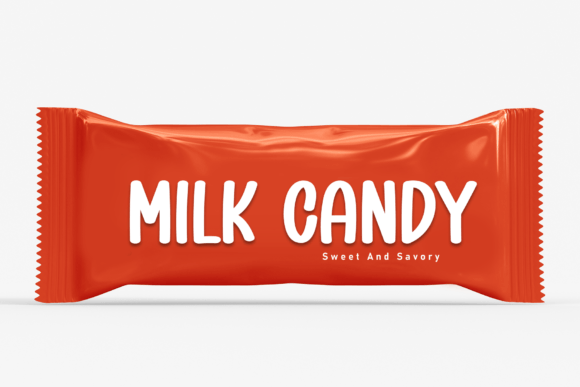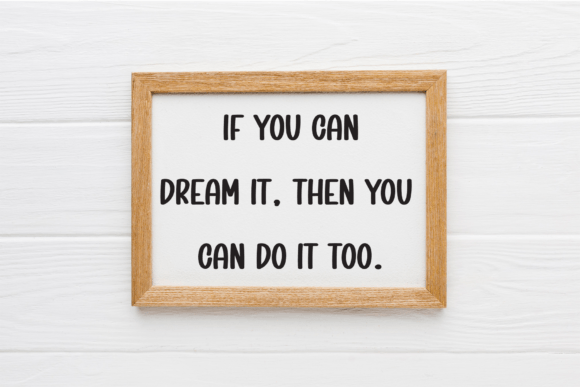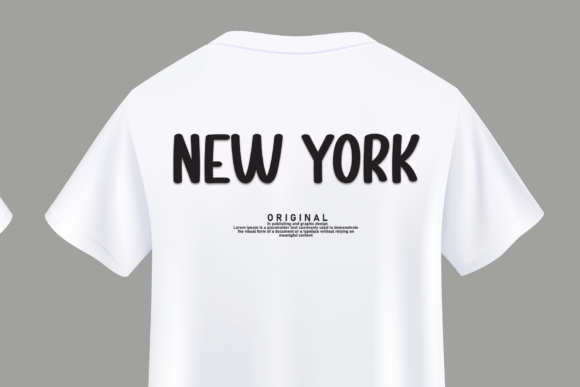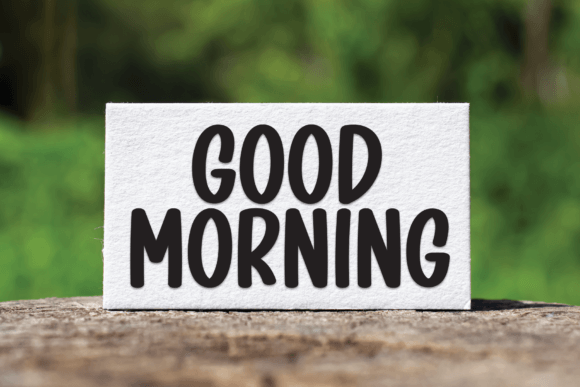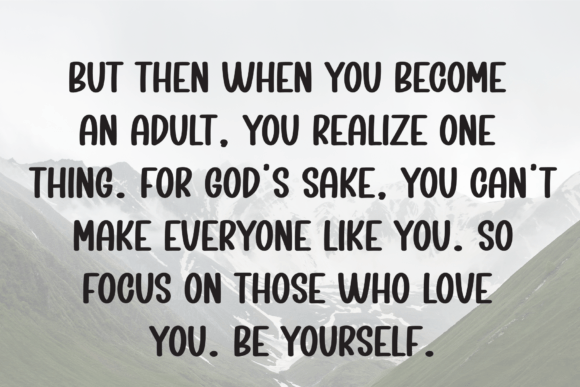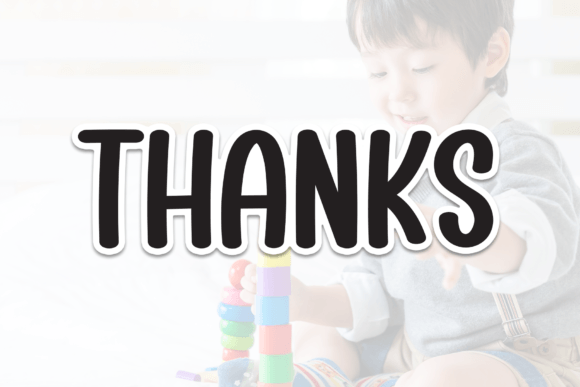
Baby Boy Font: The Sweet and Friendly Handwritten Font for Your Designs
Are you looking for a font that can add a touch of sweetness and friendliness to your designs? Look no further than the Baby Boy font! This beautiful handwritten font is perfect for a wide range of design projects, from baby shower invitations and nursery decor to branding and marketing materials. In this article, we’ll take a closer look at the Baby Boy font, its features, and how you can use it to create stunning designs.
What is Baby Boy Font?
Baby Boy font is a sweet and friendly handwritten font that is designed to bring a touch of warmth and personality to your designs. Its natural and unique style makes it incredibly fitting to a large pool of designs, from playful and whimsical to elegant and sophisticated. The font is perfect for designers and crafters who want to add a personal touch to their work.
Key Features of Baby Boy Font
- Handwritten style: Baby Boy font has a beautiful handwritten style that gives it a personal and unique touch.
- Sweet and friendly: The font has a sweet and friendly feel that makes it perfect for designs that require a touch of warmth and personality.
- Natural and unique: The font’s natural and unique style makes it incredibly fitting to a wide range of designs.
- Highly versatile: Baby Boy font can be used for a variety of design projects, from baby shower invitations and nursery decor to branding and marketing materials.
How to Use Baby Boy Font in Your Designs
The possibilities are endless when it comes to using Baby Boy font in your designs. Here are a few ideas to get you started:
- Baby shower invitations: Use Baby Boy font to create adorable and personalized baby shower invitations that will set the tone for a sweet and festive celebration.
- Nursery decor: Add a touch of sweetness and warmth to nursery decor with Baby Boy font. Use it to create personalized wall art, bedding, and curtains.
- Branding and marketing materials: Use Baby Boy font to add a personal touch to your branding and marketing materials, such as business cards, brochures, and social media graphics.
- Stationery and paper crafts: Baby Boy font is perfect for stationery and paper crafts, such as handmade cards, gift tags, and journal pages.
Tips for Using Baby Boy Font
Here are a few tips for using Baby Boy font in your designs:
- Pair it with other fonts: Experiment with pairing Baby Boy font with other fonts to create a unique and interesting look.
- Use it in combination with images: Use Baby Boy font in combination with images to create a visually appealing design.
- Experiment with colors: Don’t be afraid to experiment with different colors and textures to add depth and interest to your design.
In conclusion, Baby Boy font is a sweet and friendly handwritten font that is perfect for a wide range of design projects. Its natural and unique style makes it incredibly fitting to a large pool of designs, and its highly versatile nature makes it a great addition to any designer’s toolkit. Whether you’re a designer, crafter, or DIY enthusiast, Baby Boy font is sure to inspire your creativity and help you create stunning designs.